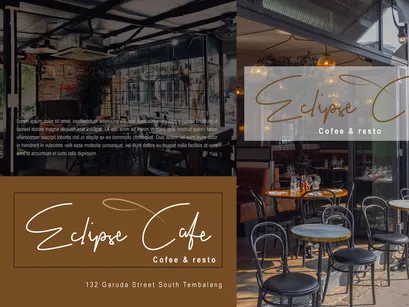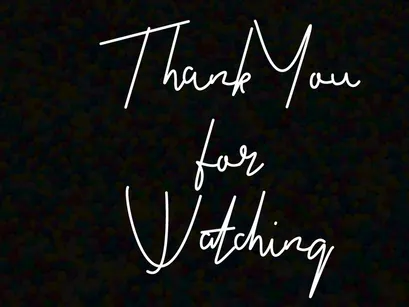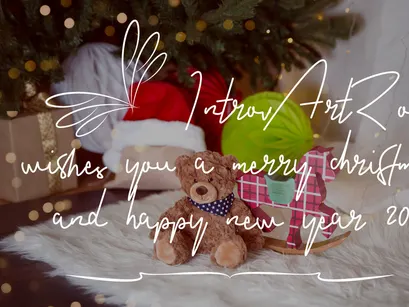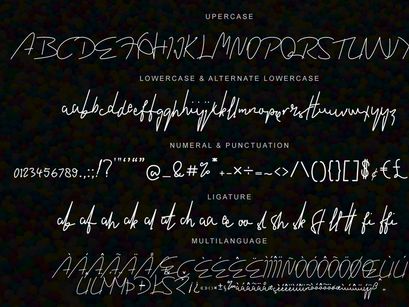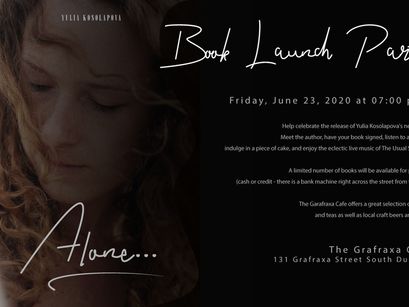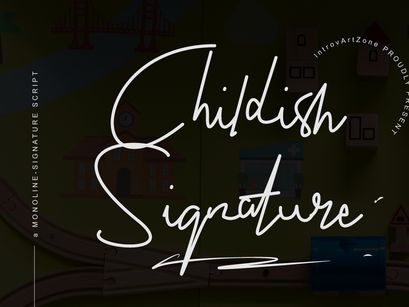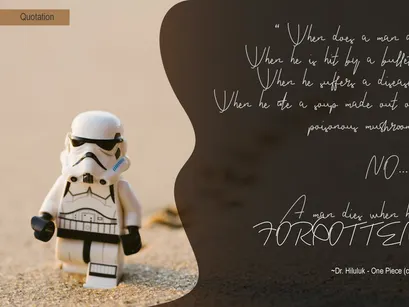
Childish Signature FontPremium
Childish Signature Font
IntrovArtZone proudly present Childish Signature Font Family, is a handwritten monoline font in the style of a signature, simple but still elegant.
Childish Signature can be used for various purposes such as book title, quotqtion, wedding invitation, graphic design, print design, web design, branding, and many more.